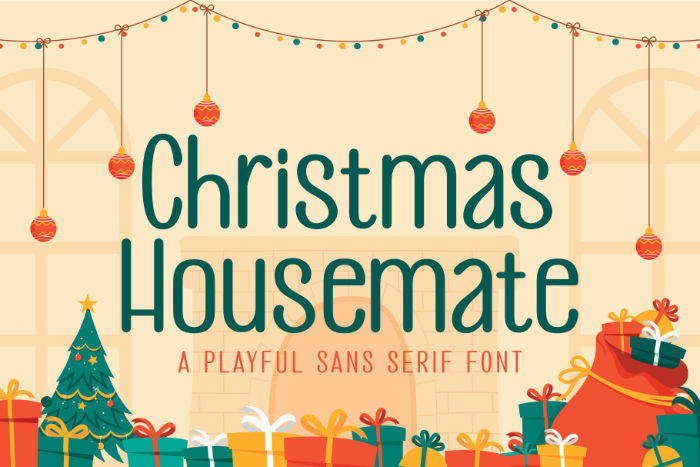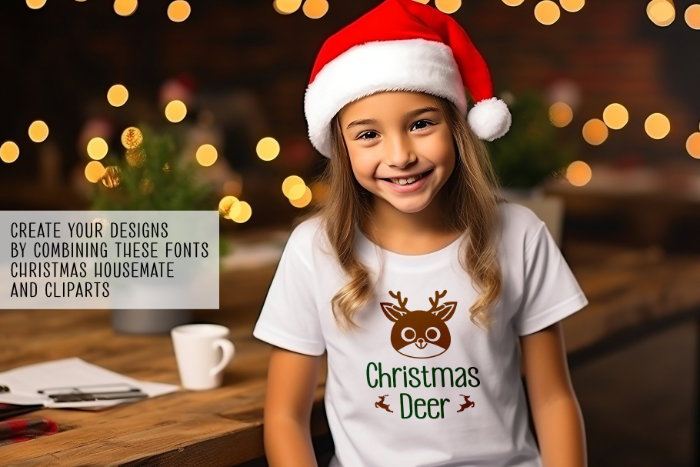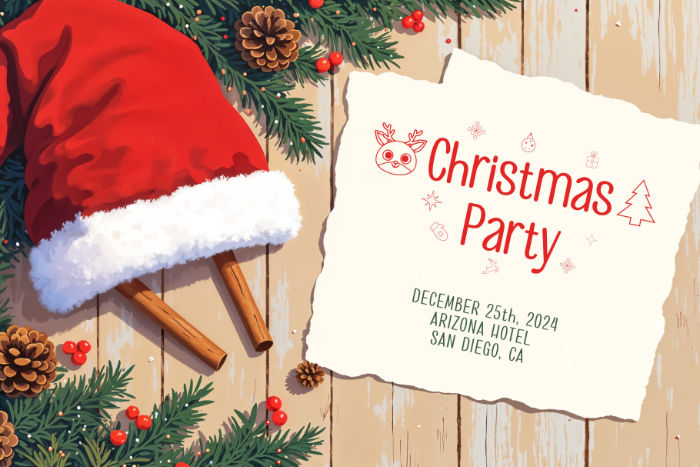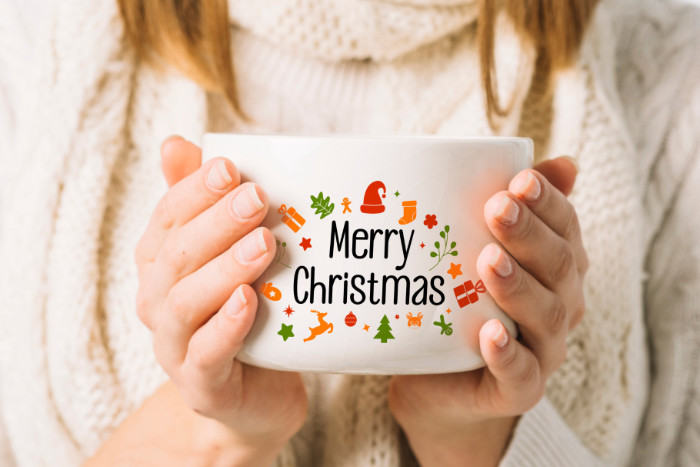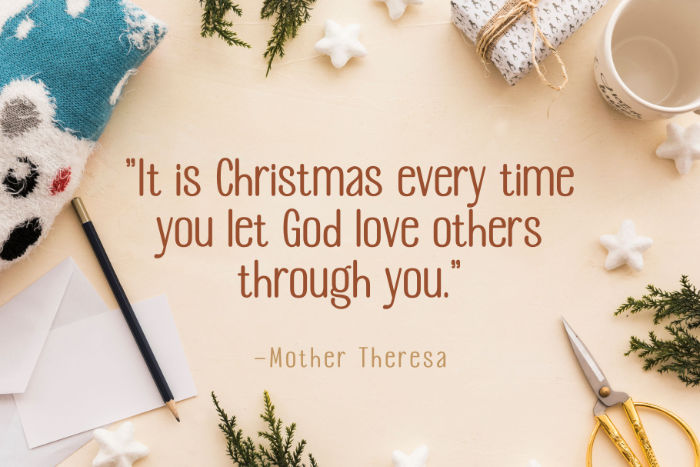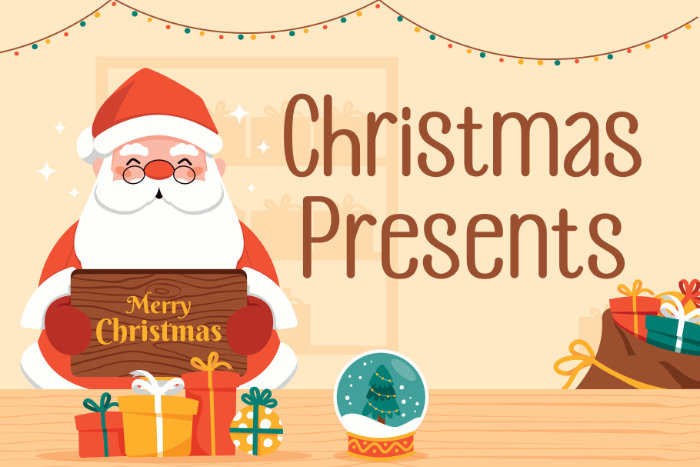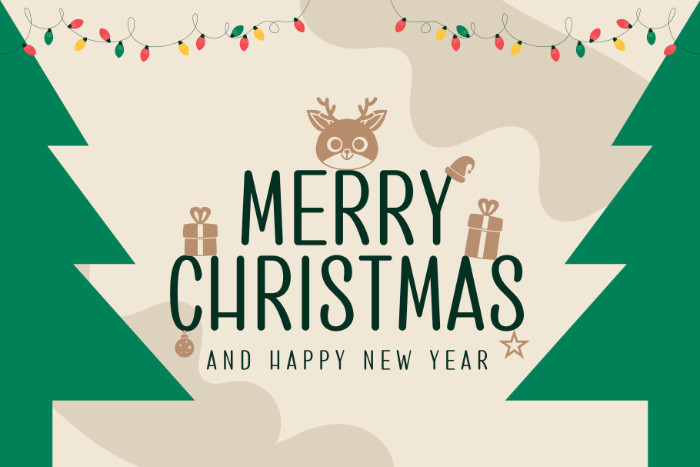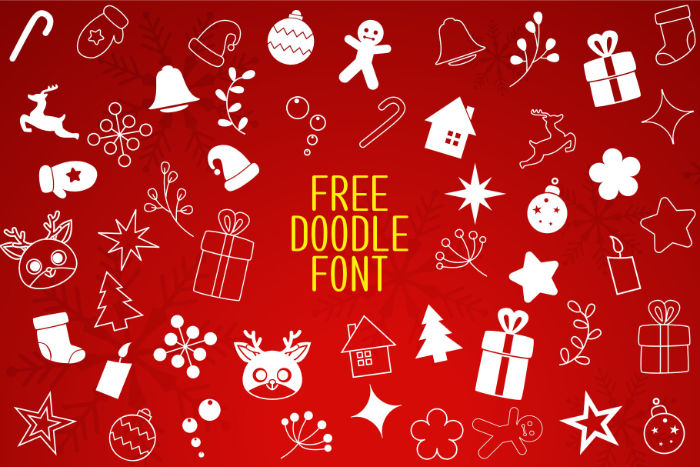
Get into the festive spirit with Christmas Housemate, a whimsical sans serif font that adds a touch of playfulness to your holiday designs. This font features simple, yet charming characters that are perfect for creating warm and inviting designs for the season. Whether you’re designing holiday cards, festive banners, or cheerful social media posts, Christmas Housemate offers the perfect blend of simplicity and joy.
But that’s not all—this font comes with an extra doodle font, allowing you to add delightful, hand-drawn elements to your creations. From cute little Christmas trees and ornaments to playful reindeer and snowflakes, these doodles will make your designs stand out and bring a smile to everyone’s face.
Perfect for both professional designers and hobbyists, Christmas Housemate is incredibly versatile and easy to use. Its clean lines and playful spirit make it a go-to choice for all your holiday projects. Bring your unique designs to life and spread the holiday cheer with Christmas Housemate.